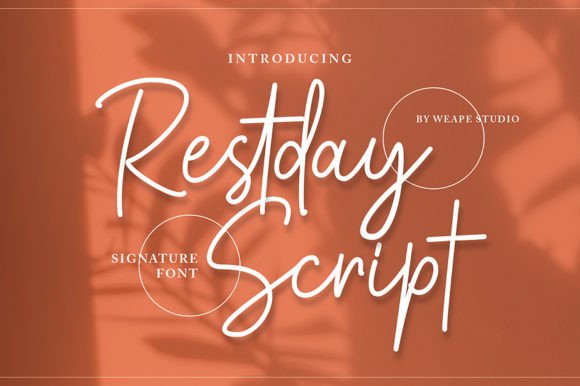
Unleash your creativity with Restday Signature Script Font! Fall in love with its charming monoline design, capturing the essence of handwritten signatures with a fast hand sweep style. This beauty is perfect for everyday projects, including logos, fashion, apparel, photography, watermarks, quotes, signatures, posters, invitations, stationery, branding, letterheads, and so much more! Restday is PUA encoded, making it easy to access all its glyphs and swashes.
With Restday, you can effortlessly elevate your projects with its timeless elegance. Imagine your Instagram stories adorned with Restday's unique script, making your content stand out from the crowd. Its stylish flow adds a touch of individuality to your designs, whether it's for personal or professional use.
Restday's versatility knows no bounds, enabling you to explore a wide range of creative possibilities. Create eye-catching logos that leave a lasting impression, design fashion and apparel with a unique flair, or add a personal touch to your photography. Watermarks, quotes, and signatures take on new life with Restday's elegant script, making them truly memorable.
So, embark on a creative journey with Restday Signature Script Font and let your imagination soar! Turn your projects into captivating masterpieces and make a statement with every design.